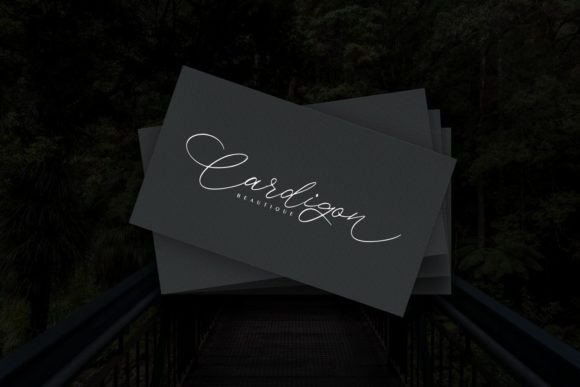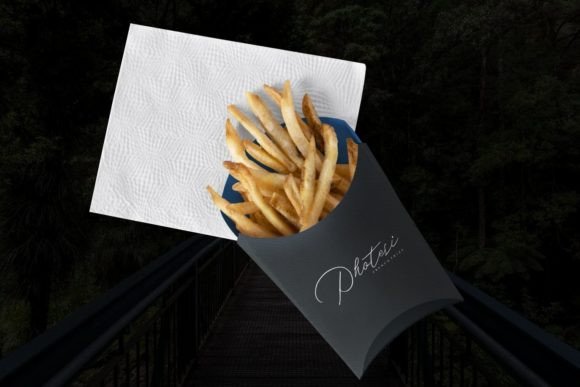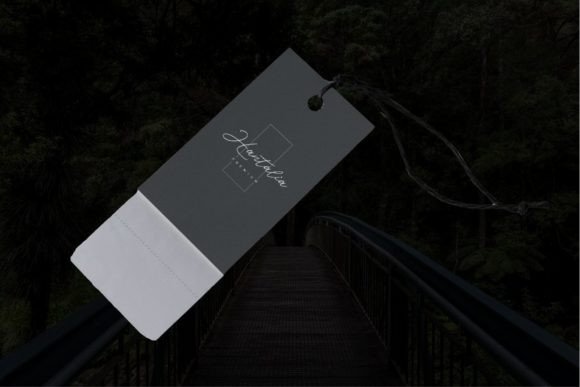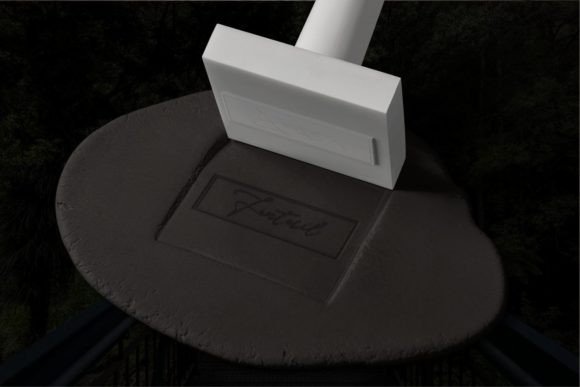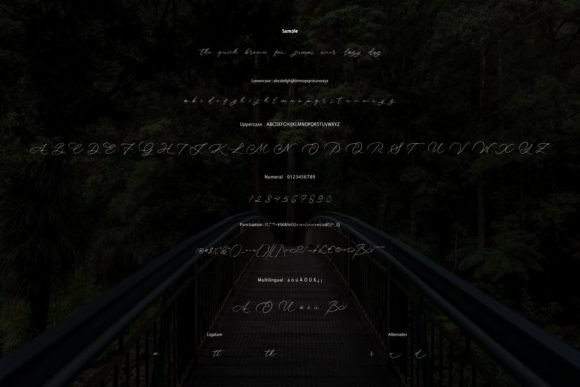
Introduction to Ranthalon Bomliend Font
Ranthalon Bomliend is a dazzling script font.
This font is neatly crafted and highly detailed Whatever the topic, this font will be a wonderful asset to your font library, as it has the potential to enhance any creation.
Key Features of Ranthalon Bomliend Font